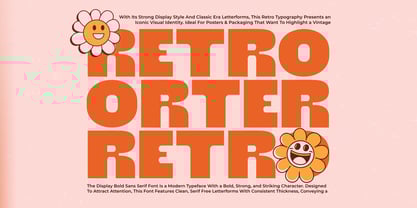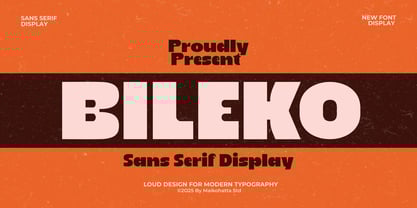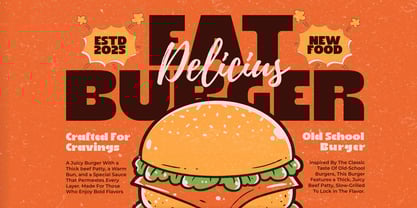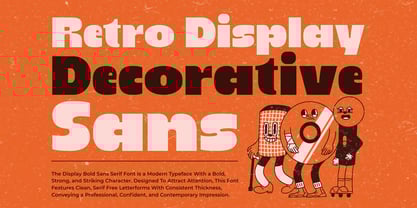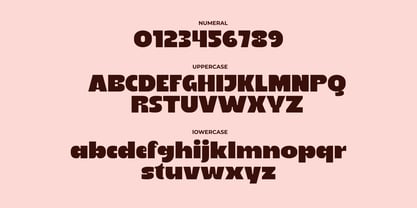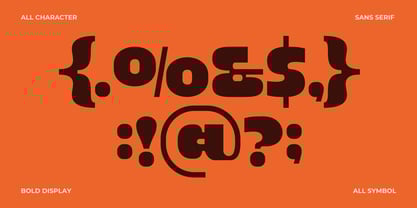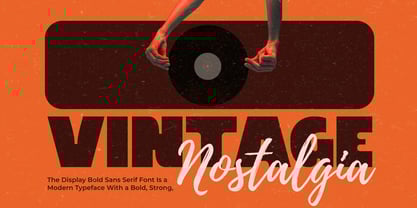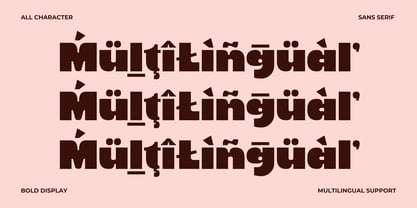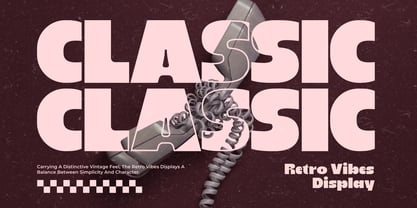
Bileko
by Maikohatta
The Bileko Font Family was designed by Gilang Ternadho and published by Maikohatta. Bileko contains 1 styles. More about this family
Introducing our new product Bileko - Bold Modern Sans Serif Display Bileko is a bold and modern sans serif display font designed for strong visual impact. With its heavy weight, clean geometry, and confident character, Bileko is perfect for headlines, posters, branding, logos, packaging, social media, and modern advertising designs. This font provides a bold and powerful presence while remaining clean and easy to read. Its solid shapes and contemporary style make it ideal for attention-grabbing, stand-out typography in both digital and print projects. Bileko is perfect for modern branding, editorial layouts, street style designs, and bold, attention-demanding visual identities.
Designers: Gilang Ternadho
Foundry: Maikohatta